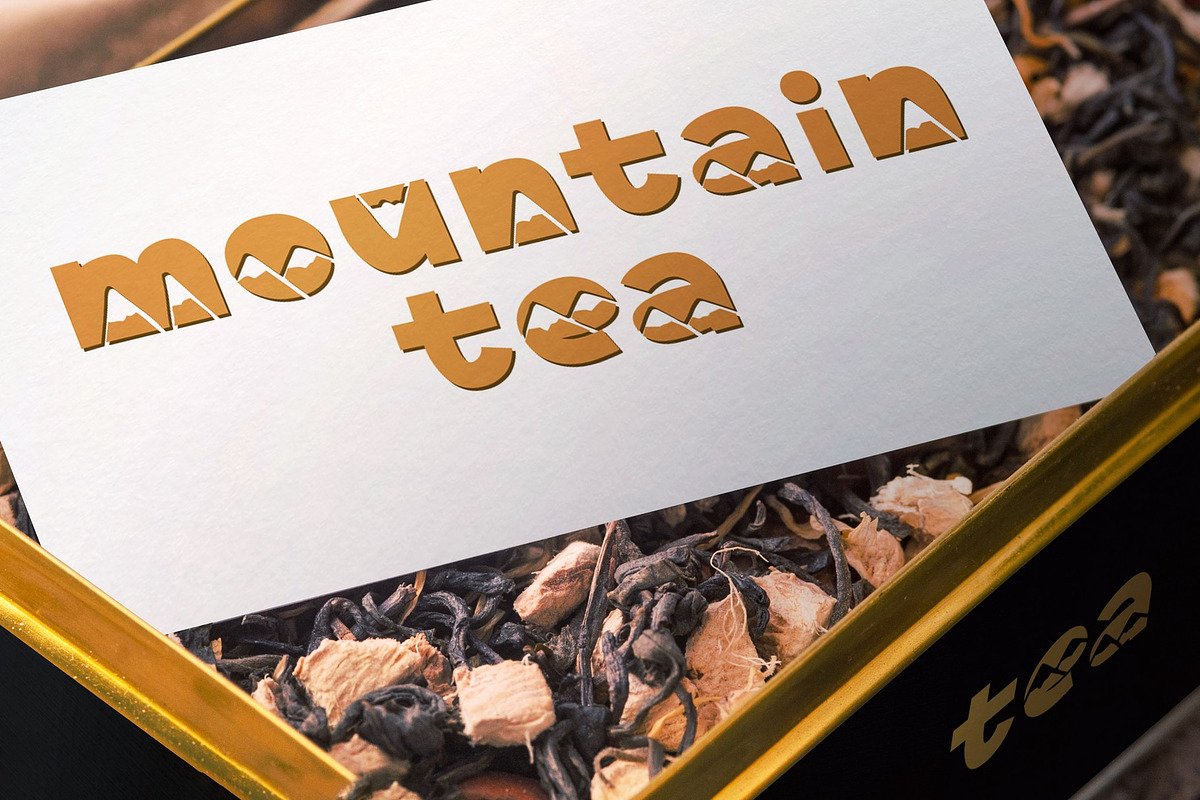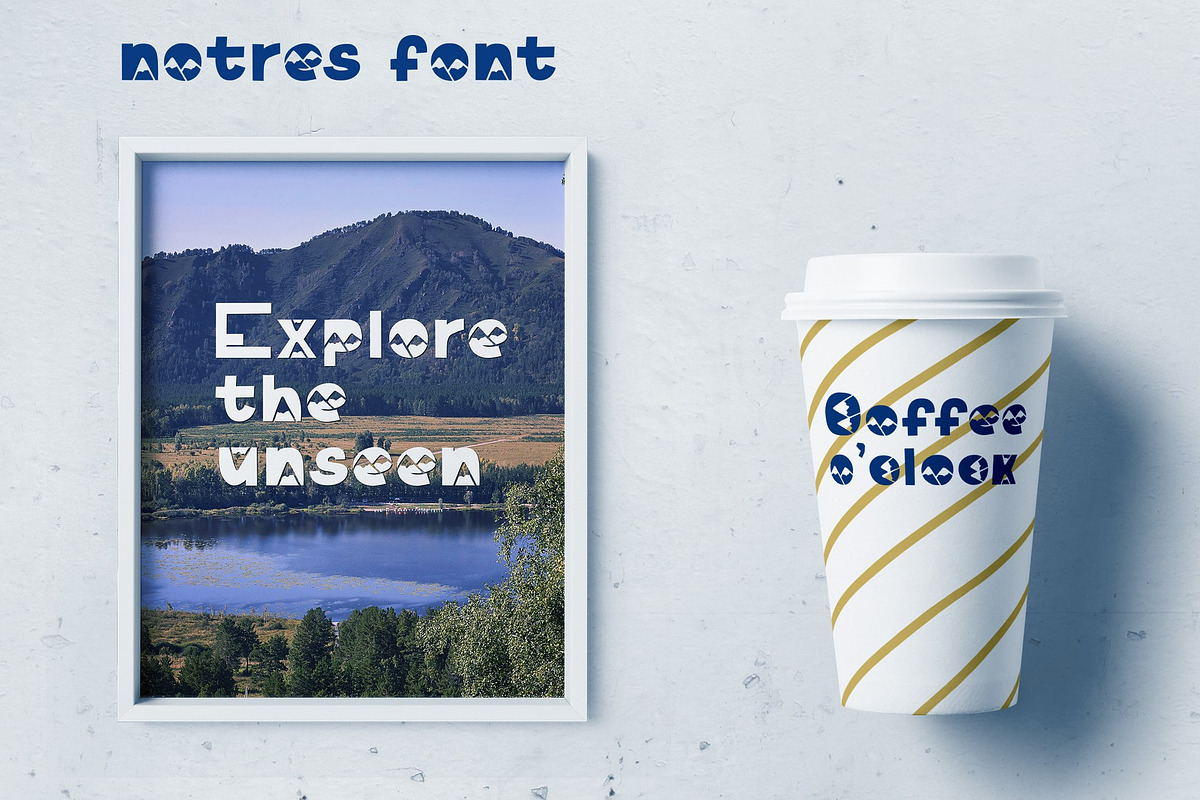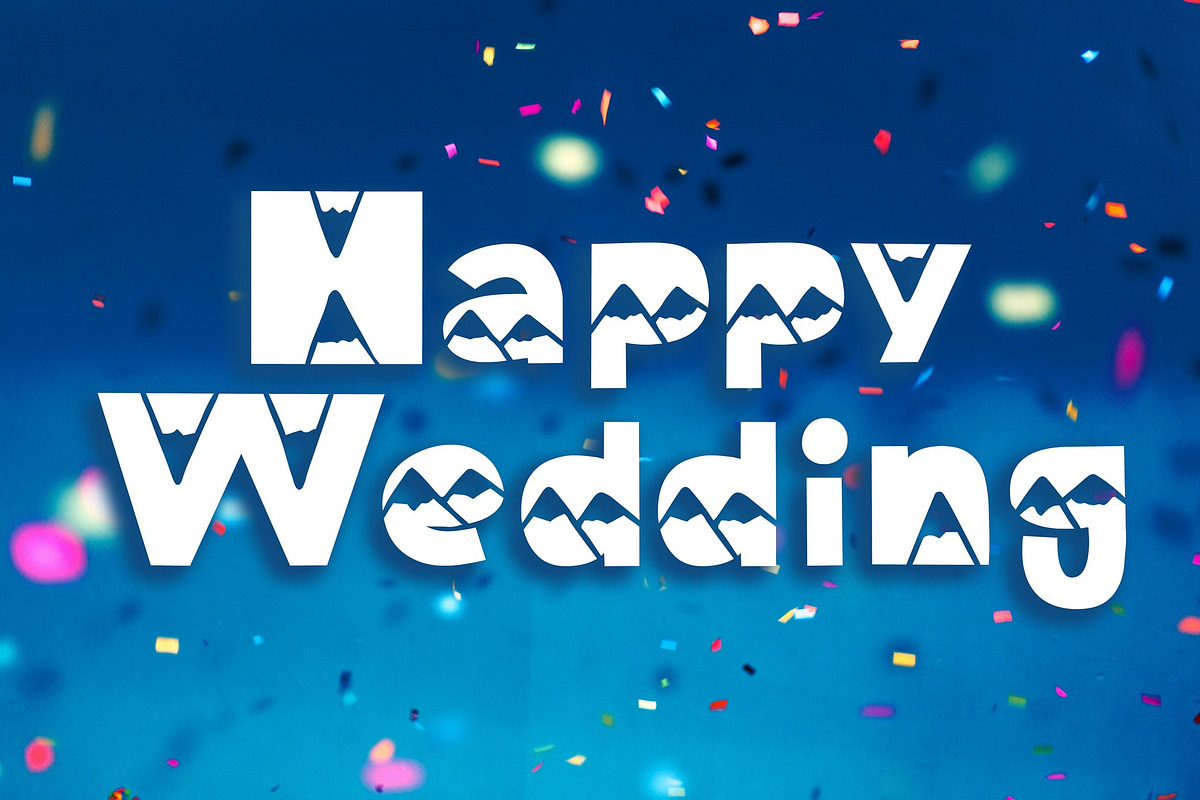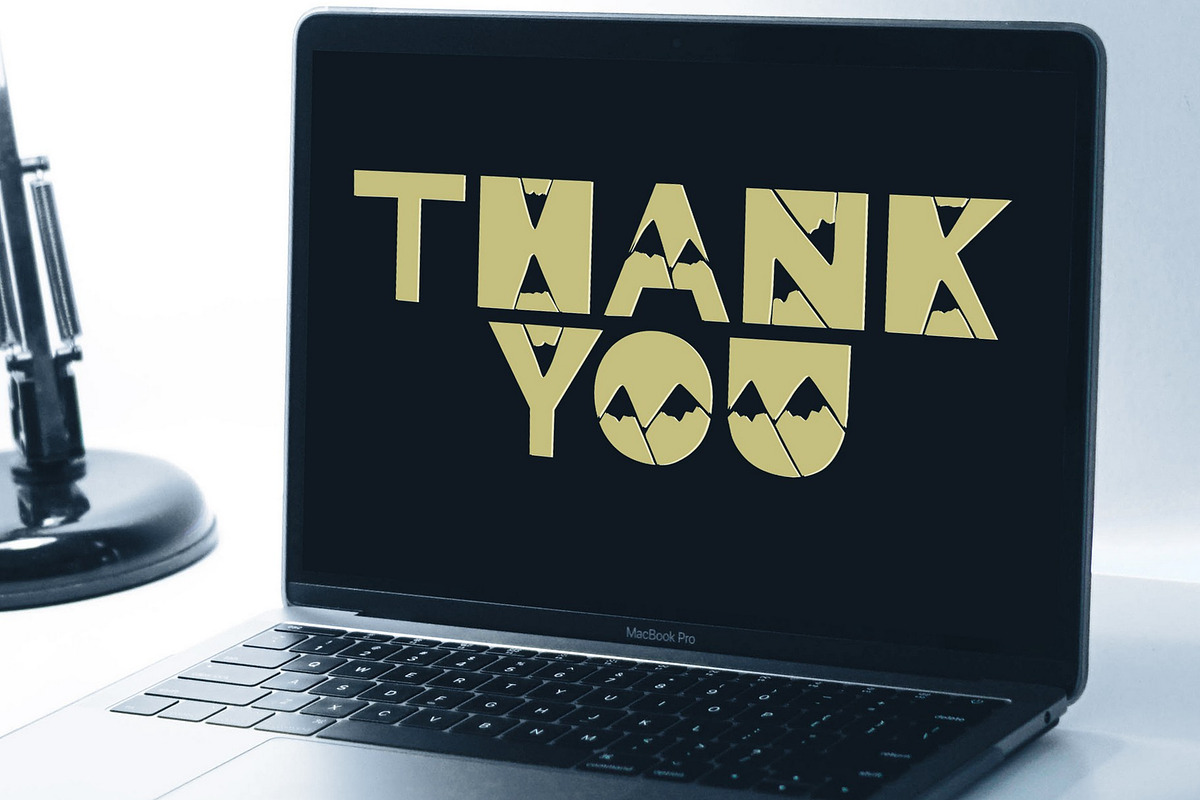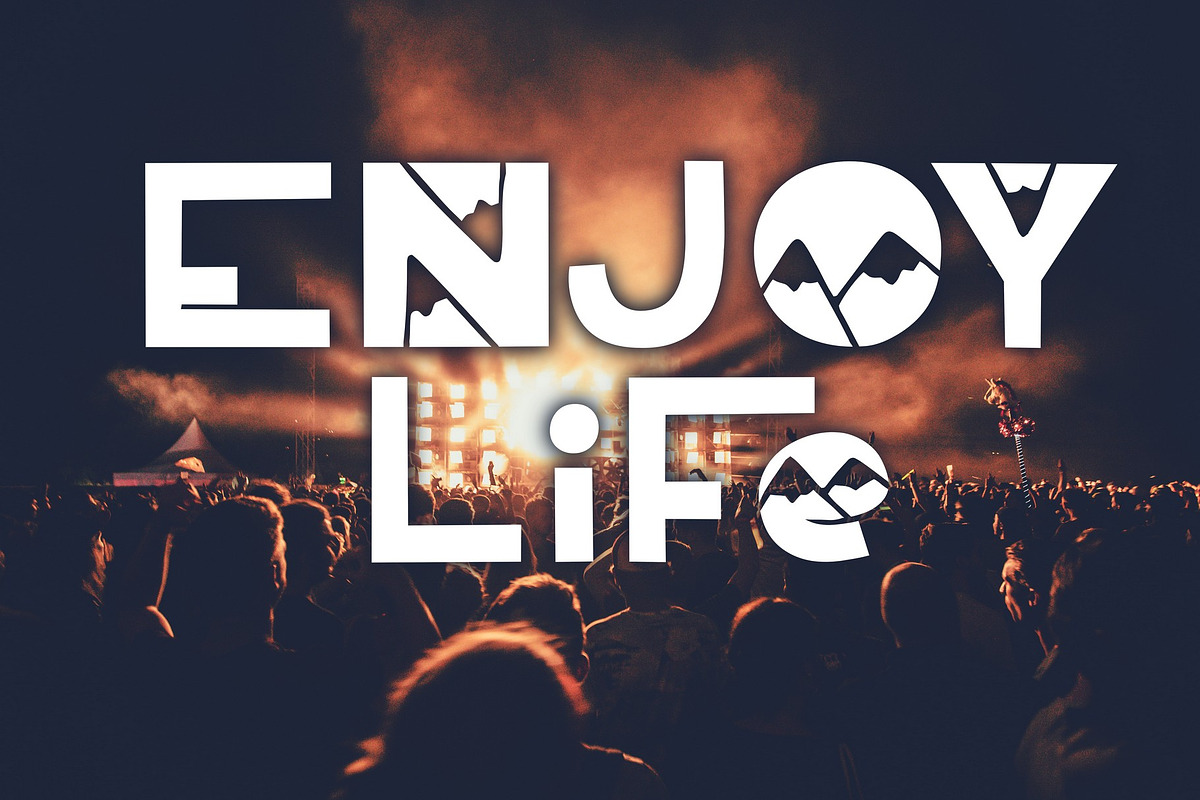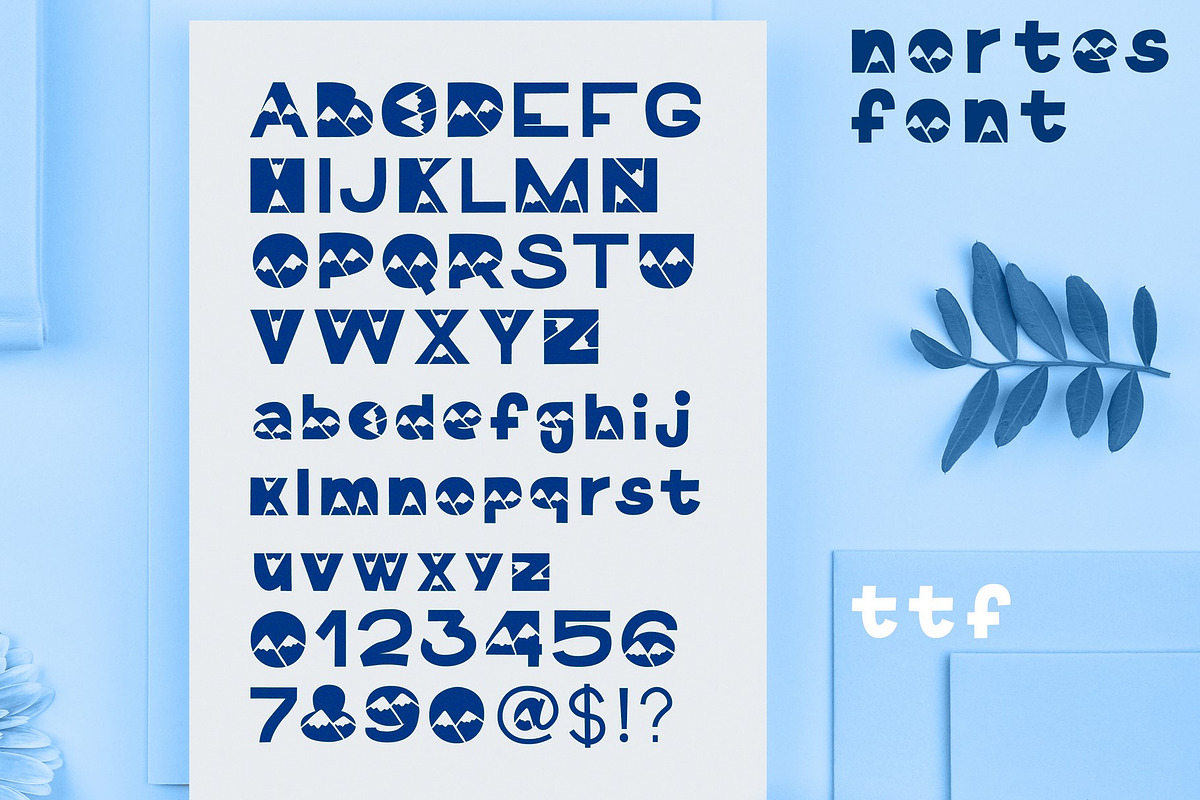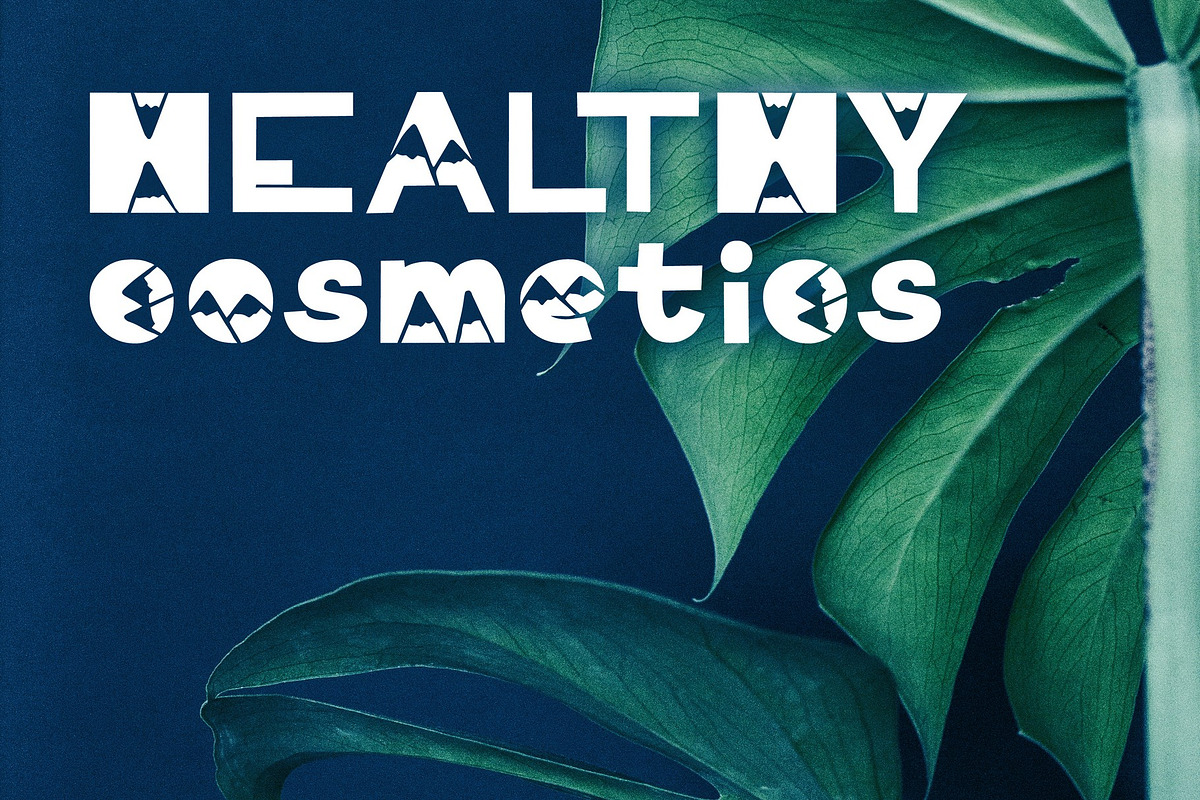
Decorative font. Notres letters
decor (menu, tag, signboard) for cafe, restaurant, rent and other services at the mountain,
tourist agency. What else?
Why Decorative font. Notres letters is worth a look
Decorative font. Notres letters by Volf Mockups fits naturally into Branding, posters, packaging, typography.